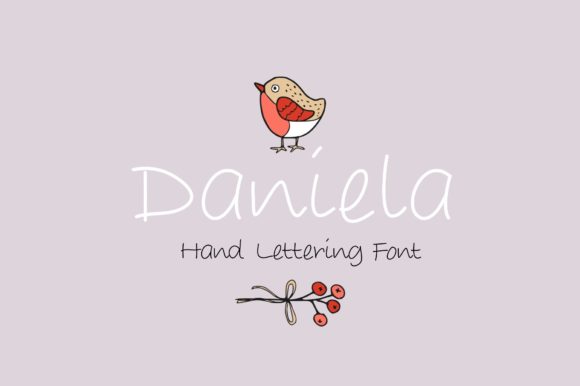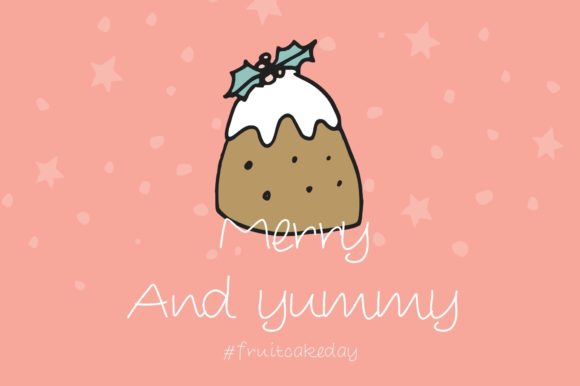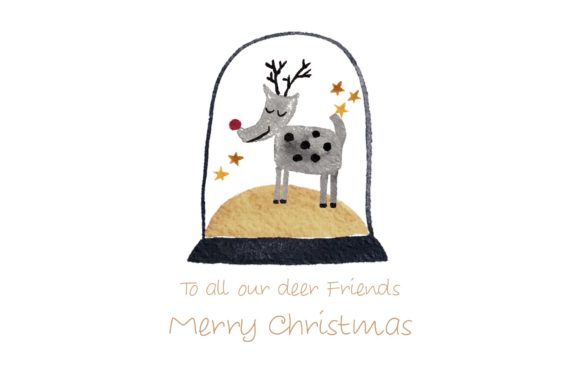
Daniela Font
About Daniela Font
Daniela is a dainty and simple handwritten font.
It is adaptable, and as a result, it matches a wide range of designs, such as Cricut projects, logos, branding, deco, mugs, pantry labels, wedding invitation, stickers, business card, greeting cards, posters, social media, planner prints and more!